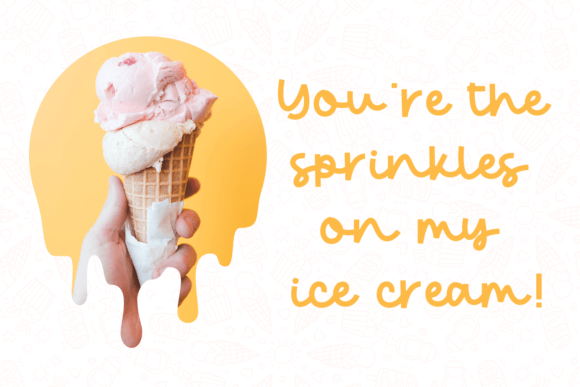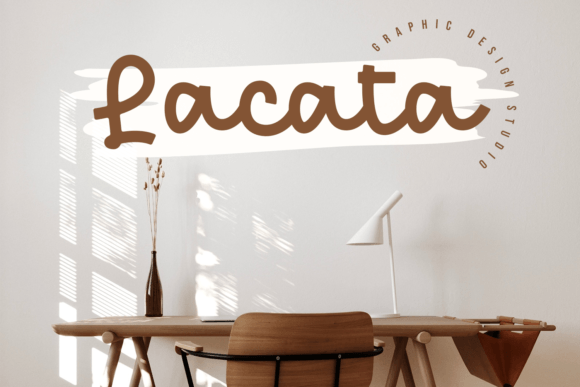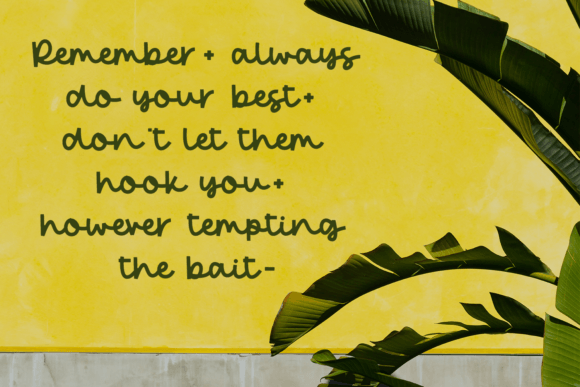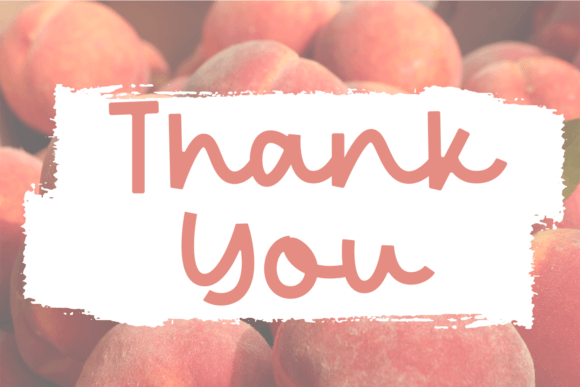
Introduction to Pinapple Font
As I sat down to plan my best friend’s wedding, I found myself lost in a sea of design inspiration. Scrolling through Pinterest boards, I stumbled upon a beautiful wedding invitation that caught my eye. The elegant script font used was what truly made the design stand out – it was love at first sight! That moment sparked a quest to find the perfect font to match the romance and charm of the invitation. Little did I know, I was about to discover the lovely Pinapple Font, a game-changer for designers looking to add a touch of sophistication to their creative projects.
Whether you’re a seasoned designer or a hobbyist, Pinapple Font is a valuable resource that can elevate your designs to the next level. With its fluid strokes and delicate curves, this high-quality font is perfect for wedding invitations, love letters, or any design project where a touch of elegance is needed. And the best part? You can download it for free, complete with a transparent background, making it a seamless addition to any design.
As a design resource, Pinapple Font is a treasure trove of creative possibilities. From wedding invitations to social media graphics, this font is sure to bring a touch of romance and charm to any project. So why settle for a generic font when you can have a high-quality, elegant script like Pinapple Font to make your designs truly stand out?
Key Features of Pinapple Font
- Unique and playful design, ideal for creative projects
- High-quality design resource with a transparent background for versatility
- Includes a range of characters, including uppercase and lowercase letters, numbers, and symbols
Honest Review: Pinapple Font
I recently came across the Pinapple Font and I must say, it’s been a great addition to my design resources. As a designer, I’m always on the lookout for high-quality fonts that can elevate my creative projects.
One of the things that stood out to me about Pinapple Font is its unique and playful style. The font is perfect for adding a touch of whimsy to your designs. ✨ I’ve used it for a few projects and the results have been fantastic.
Here are some of the things that work well with Pinapple Font:
- High-quality design: The font is crisp and clean, making it perfect for print and digital projects.
- Transparent background: The font has a transparent background, making it easy to layer with other design elements.
- Limited font styles: Pinapple Font only comes in a few different styles, which may not be suitable for every design project.
- Not ideal for serious projects: While the font is great for creative projects, it may not be the best choice for more formal or professional designs.
Overall, I’m really impressed with Pinapple Font and I would definitely recommend it to other designers. It’s a great addition to any design resource library and can add a lot of personality to your creative projects.
Using Pinapple Font in PowerPoint/Word
In PowerPoint and Word, you can use the Pinapple Font to add a touch of creativity to your presentations and documents. Simply select the font from the font menu, type your text, and adjust the font settings as needed. The font’s transparent background makes it a great choice for adding text to images or backgrounds.
The Pinapple Font is a versatile design resource that can be used in a variety of creative projects, including social media graphics, blog posts, and marketing materials. Its unique style and transparent background make it a great choice for adding a touch of creativity to your designs.
Is Pinapple Font a high-quality design resource?
Yes, Pinapple Font is a high-quality design resource that is designed to provide a unique and creative look for your projects. The font is carefully crafted to ensure that it is legible and visually appealing, making it a great addition to any design project.